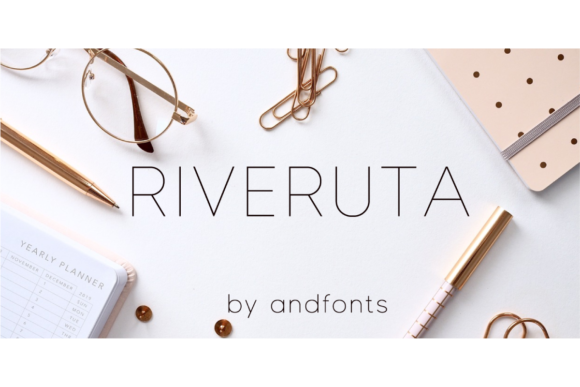
Introducing Riveruta: The Font That Resonates With Your Words
In a world saturated with visual noise, your words deserve a voice that commands attention without overpowering your message. Enter Riveruta, the strikingly slim sans serif font that lends an air of sophistication and elegance to your presentations, leaving your audience spellbound.
With its delicate strokes and minimalist design, Riveruta is the perfect font for crafting headlines that magnetize eyes and titles that leave a lasting impression. Its tall, slender characters exude a sense of grace and poise, creating an aesthetic that is both pleasing to the eye and impactful in its delivery.
Whether you're crafting a presentation for a business pitch, a school project, or a creative endeavor, Riveruta is your trusted ally, enhancing your words with its timeless beauty. Unleash your creativity and let Riveruta be the brush that paints your ideas in a palette of elegance and distinction.
Designed by the talented andfonts, Riveruta is more than just a font; it's a gateway to a world of elevated communication. Its versatility shines through its ability to adapt seamlessly to diverse contexts, making it the ideal choice for presentations, logos, branding, and countless other applications.
With Riveruta, you'll discover a font that effortlessly elevates your creations, transforming them from ordinary to extraordinary. Its slender strokes dance across the page, captivating your audience with their delicate charm. Let Riveruta be your secret weapon, helping you craft presentations that leave an indelible mark on your audience's minds.